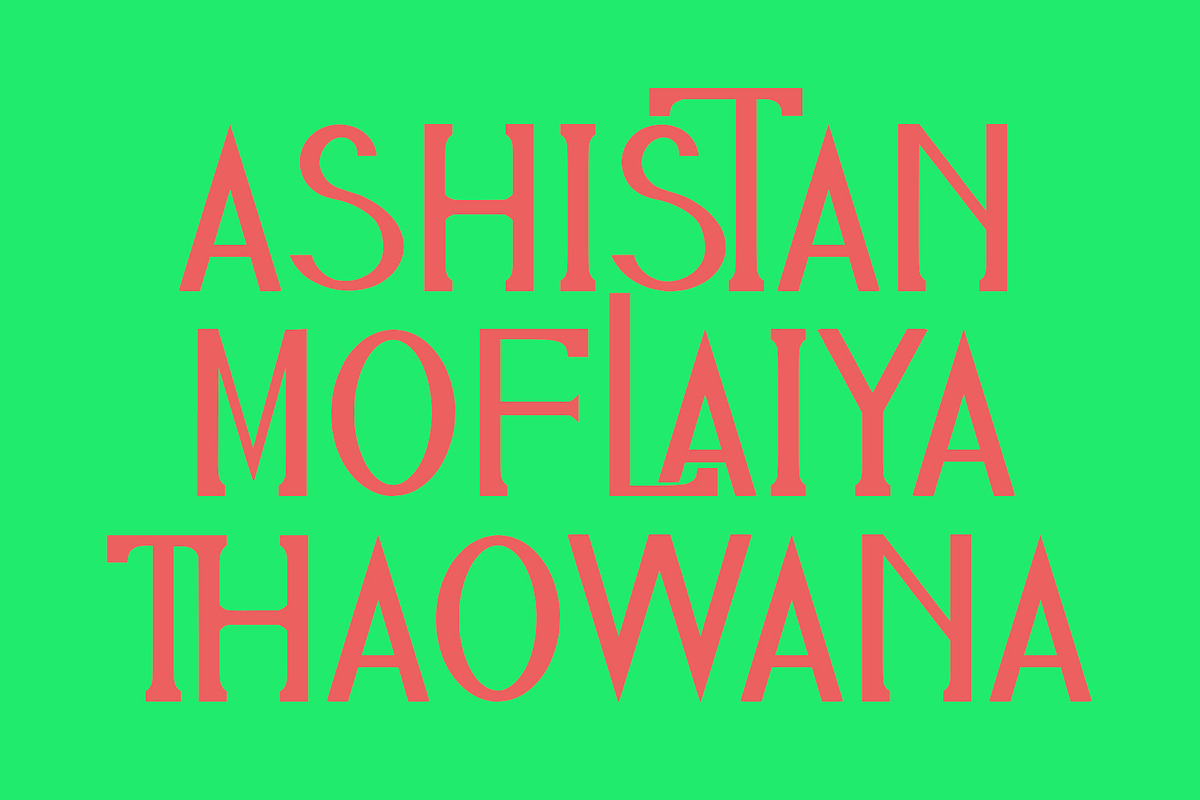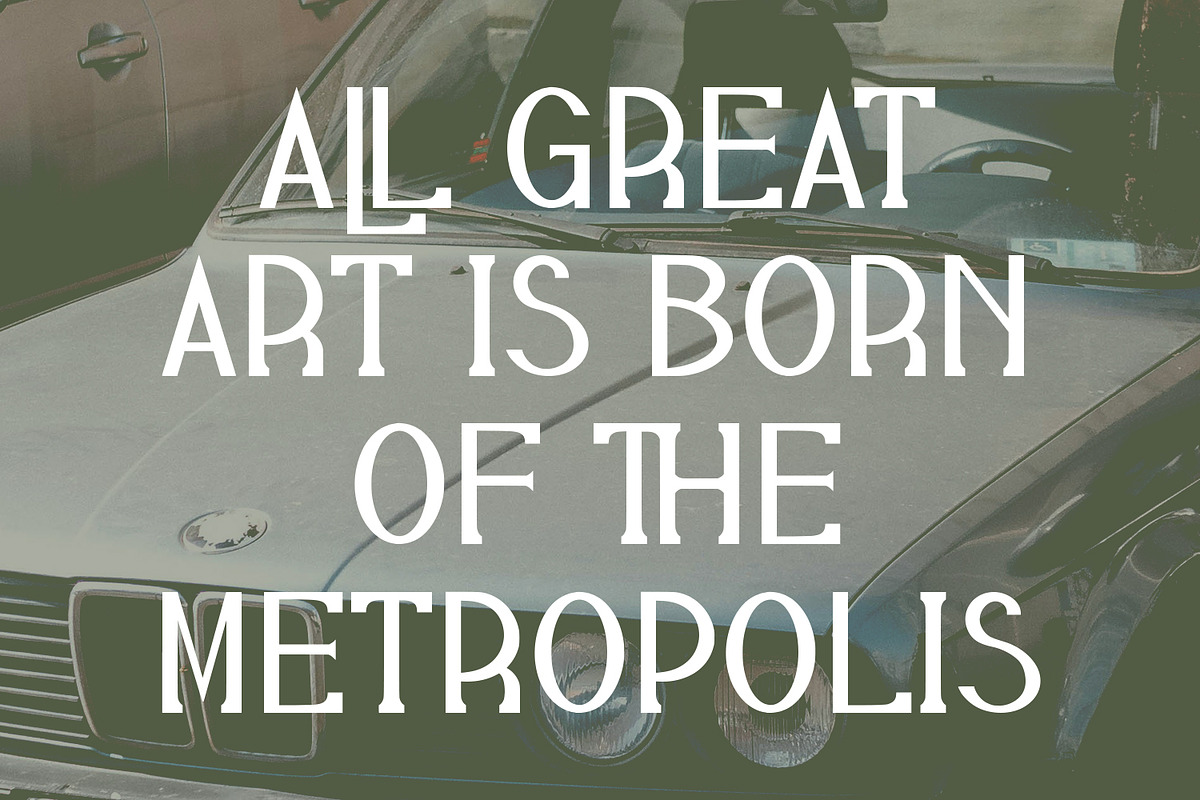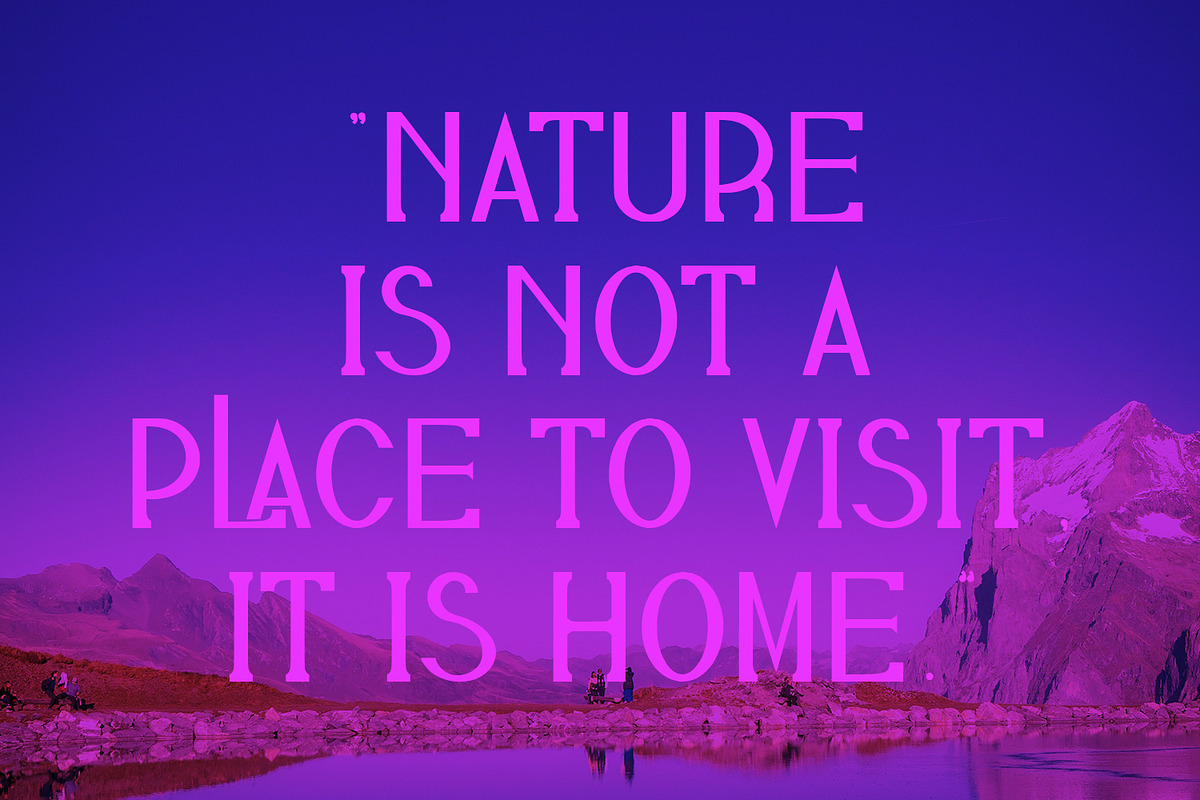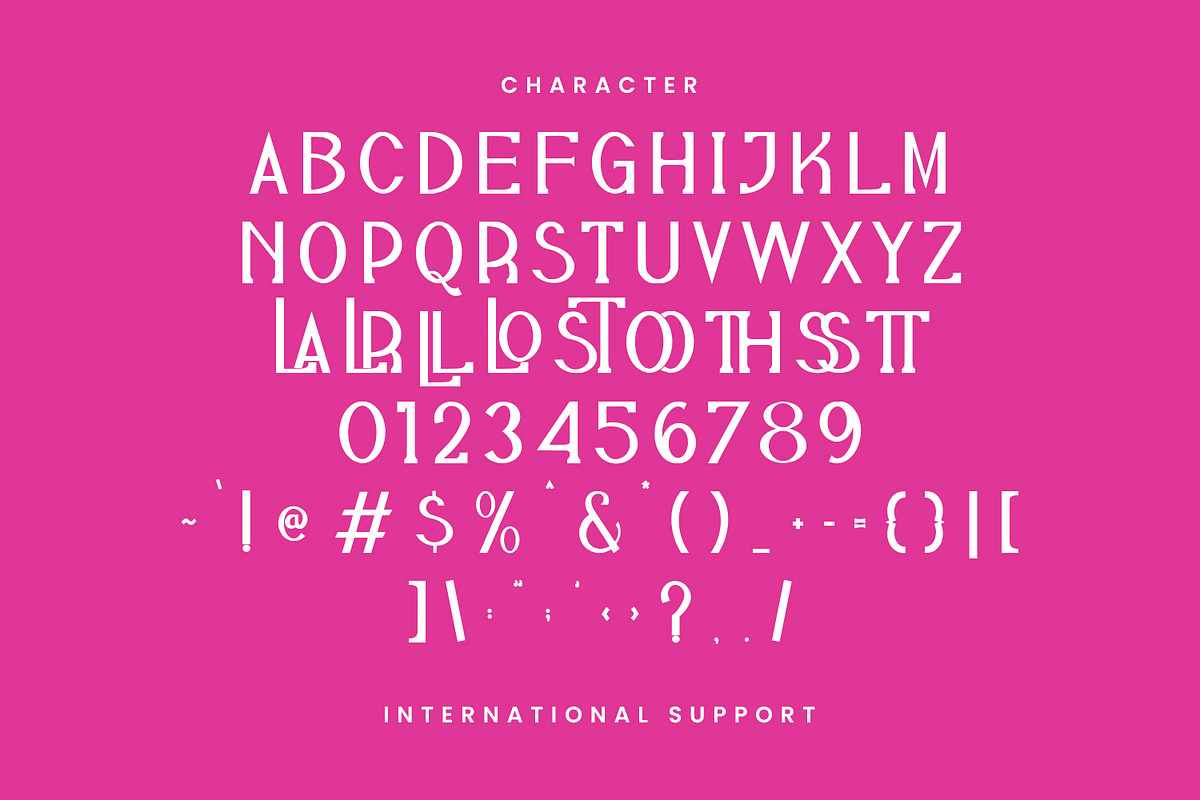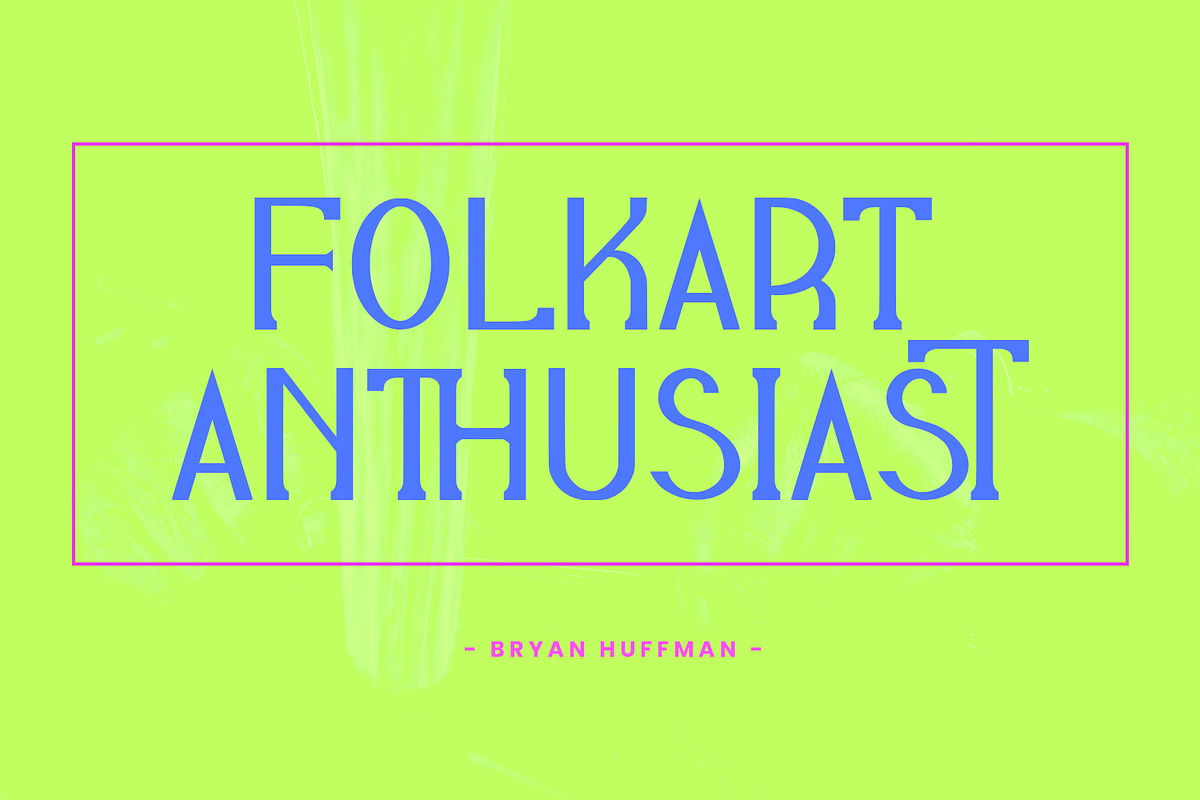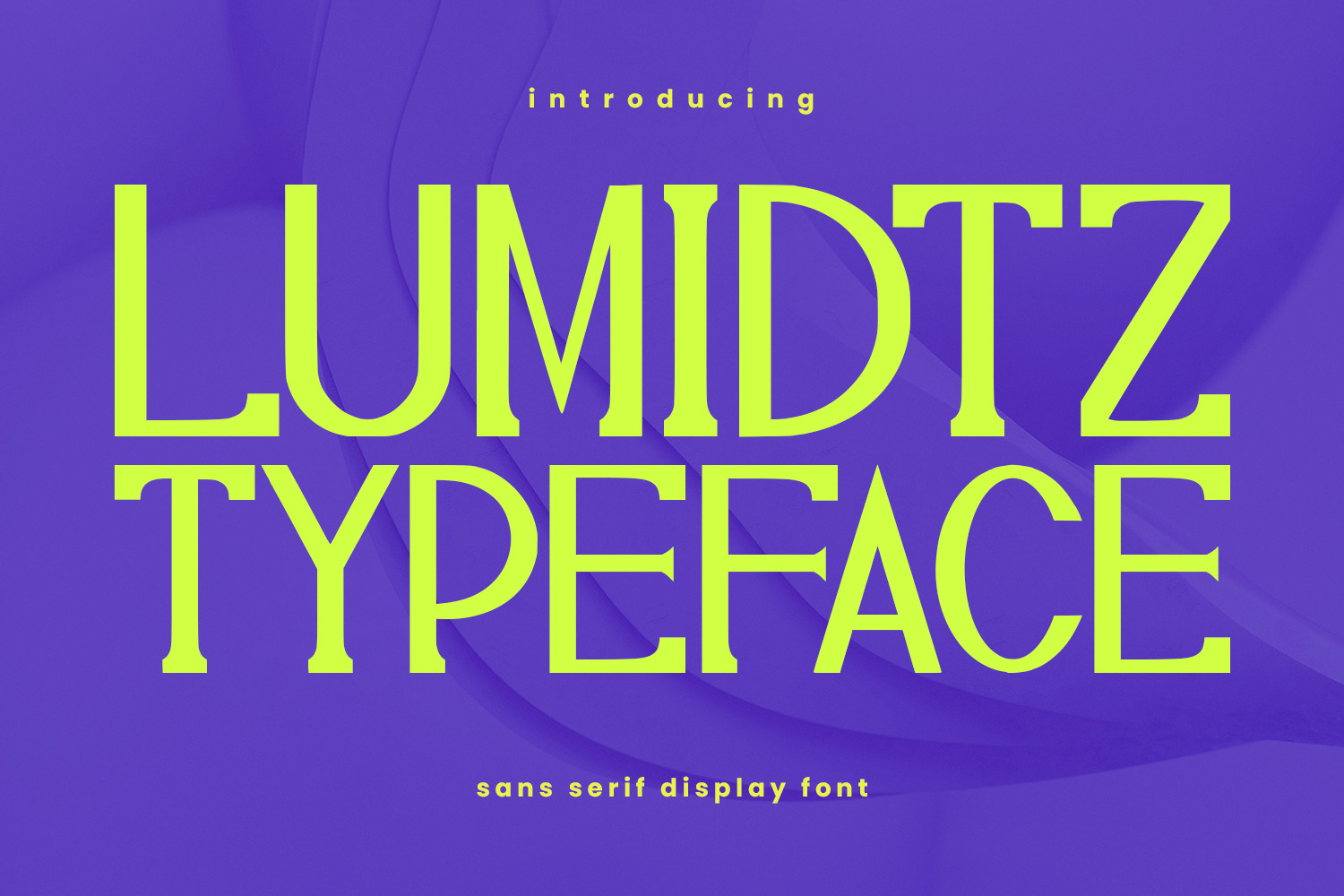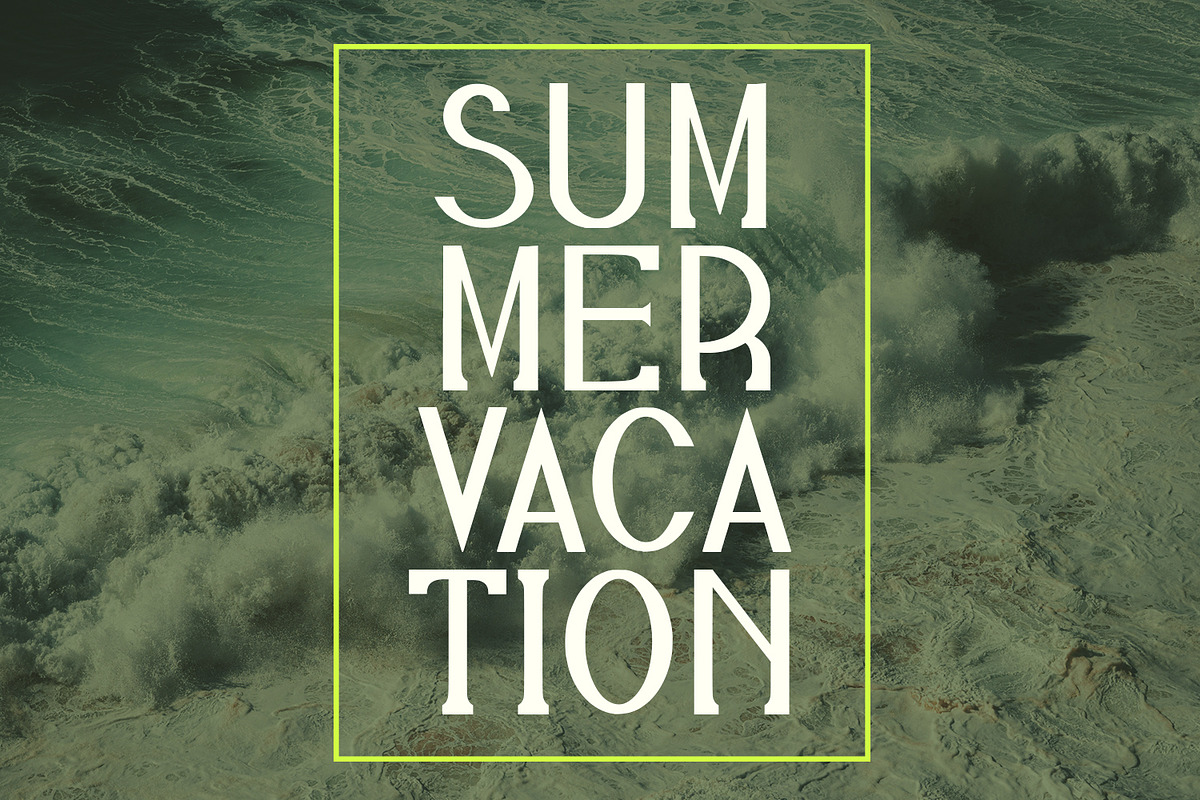
Lumidtz Sans Serif Display Font
Lumidtz is a modern condensed sans serif font. With bold tall and sharp stroke, fun character with a bit of ligatures. To give you an extra creative work. Lumidtz font support multilingual language. This font is good for logo design, Social media, Movie Titles, Books Titles, a short text even a long text letter and good for your secondary text font with sans or serif. Make a stunning work with Lumidtz font.